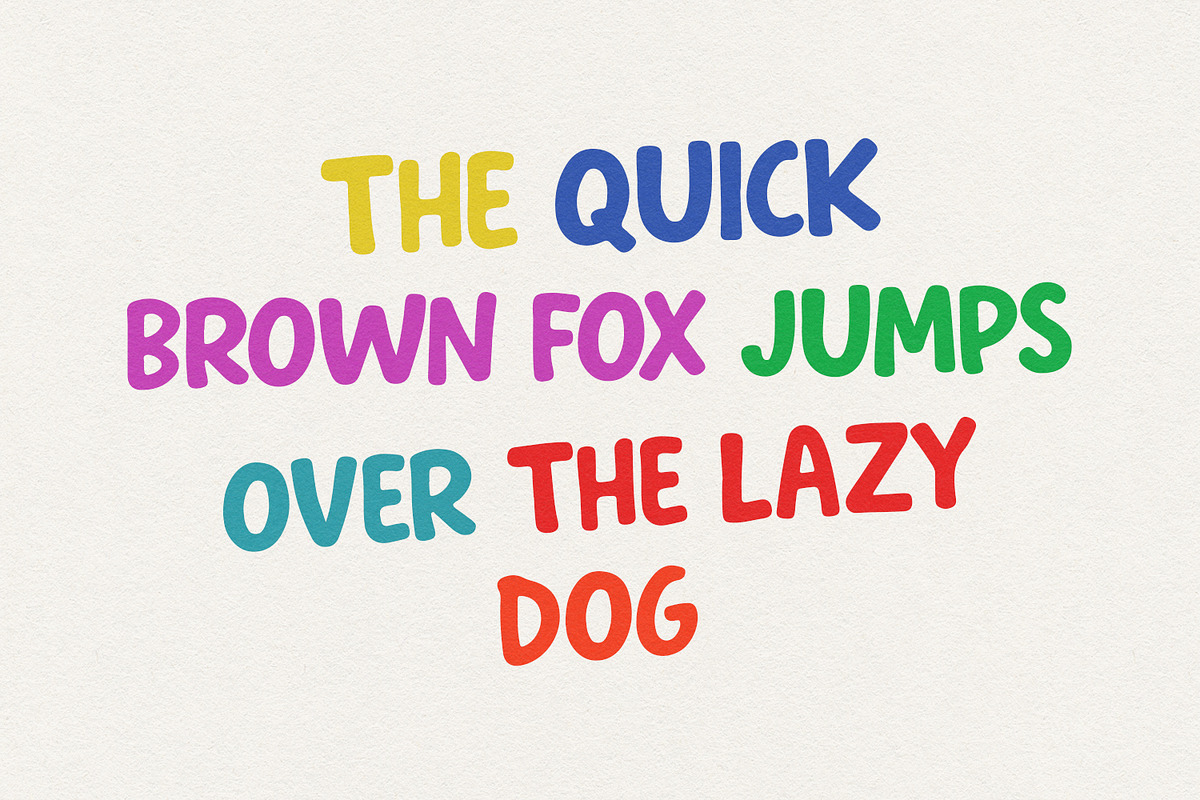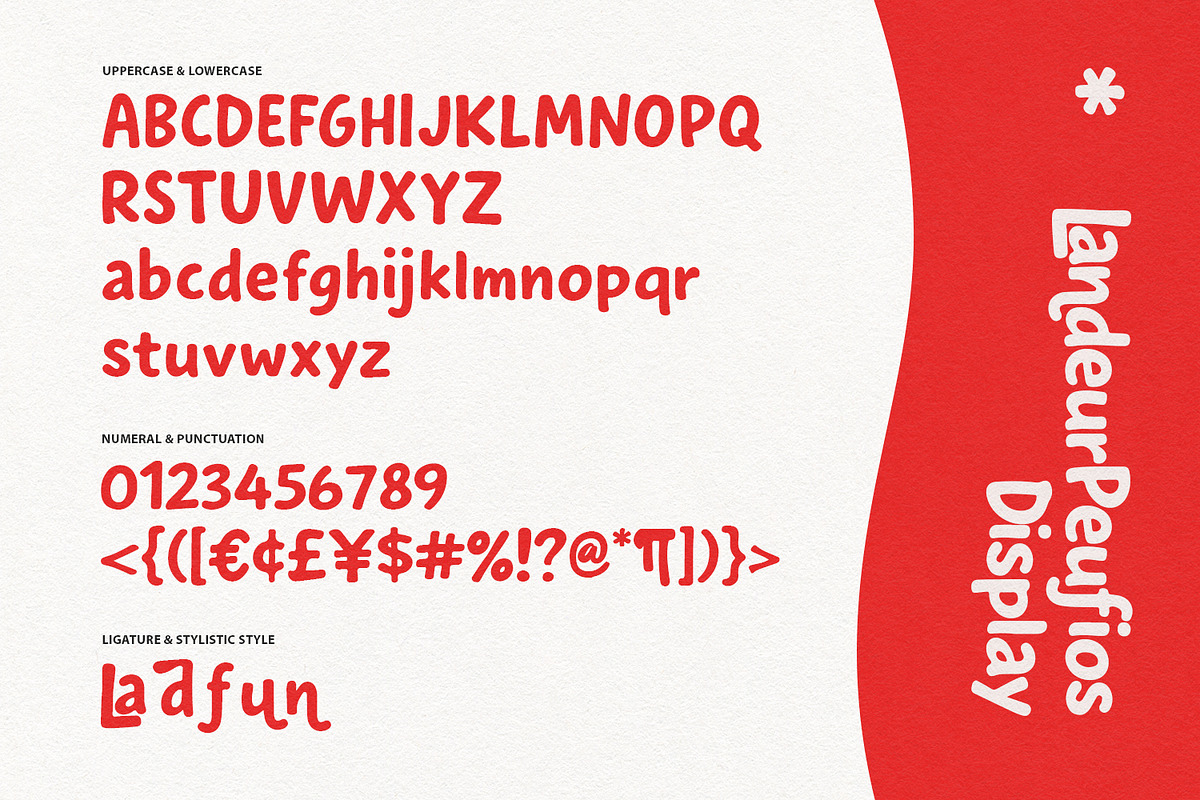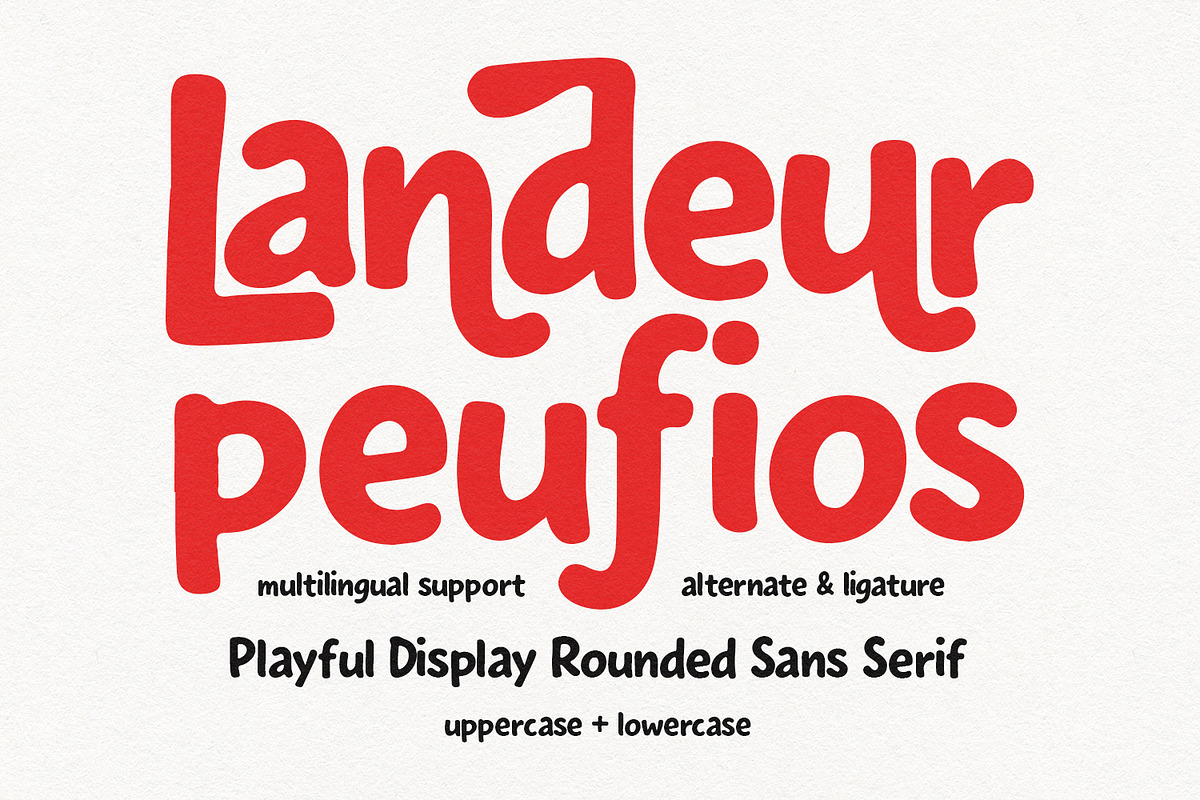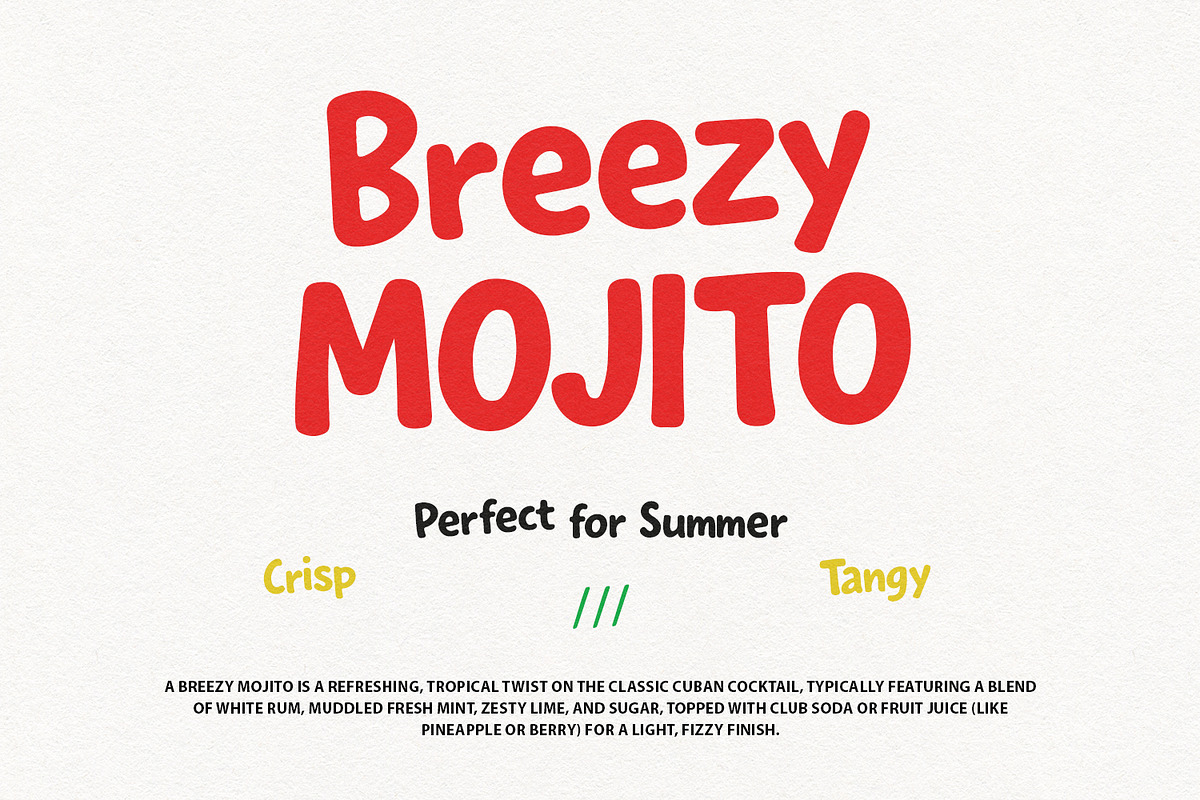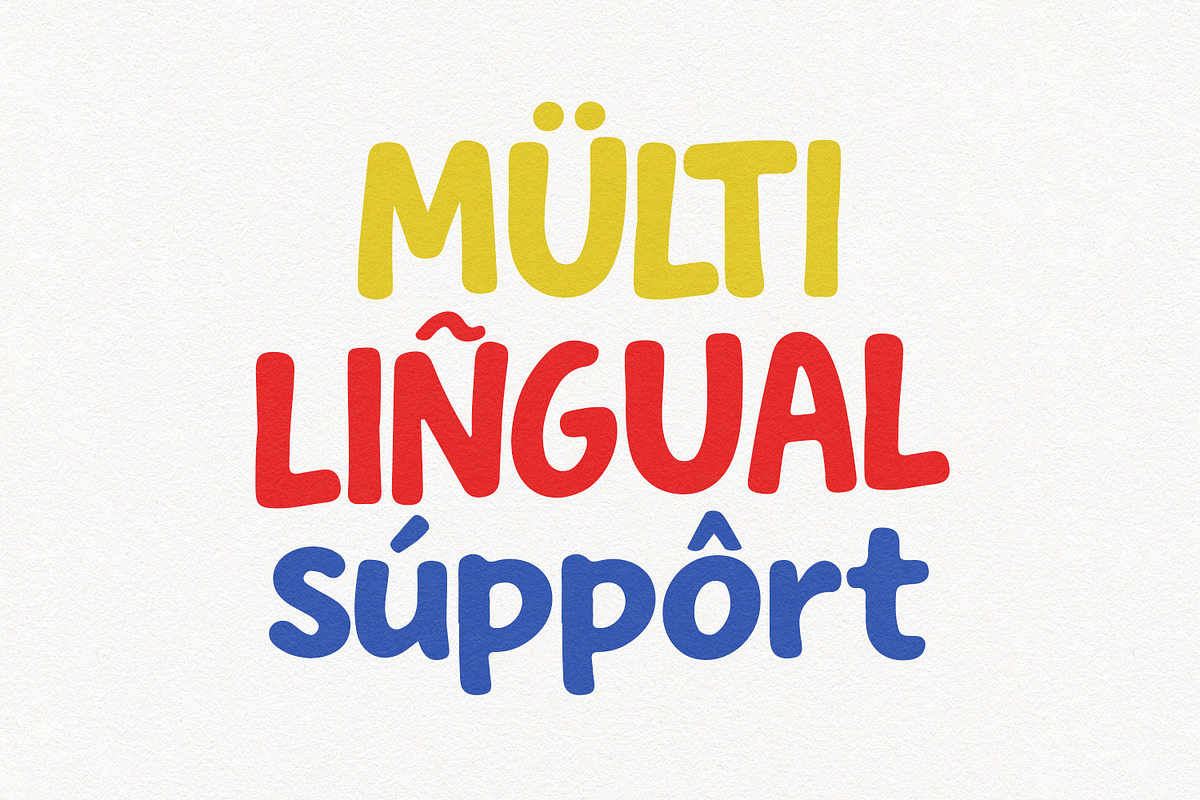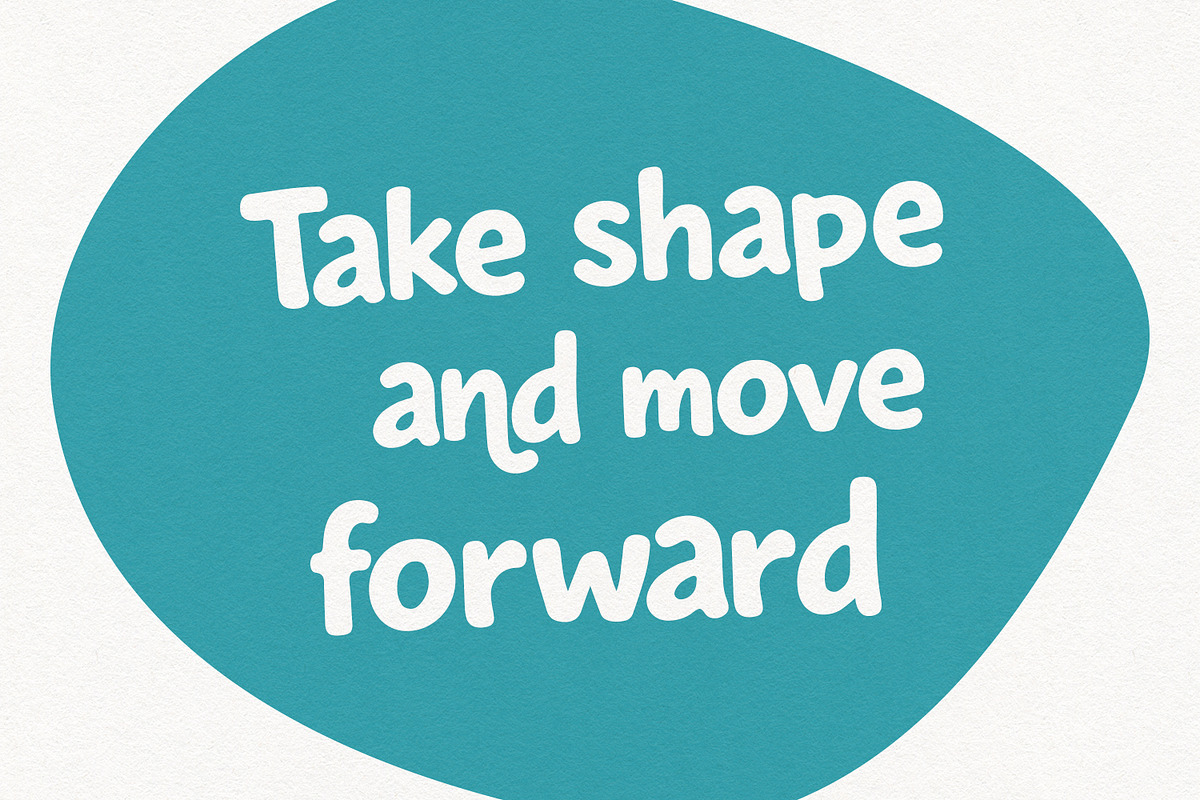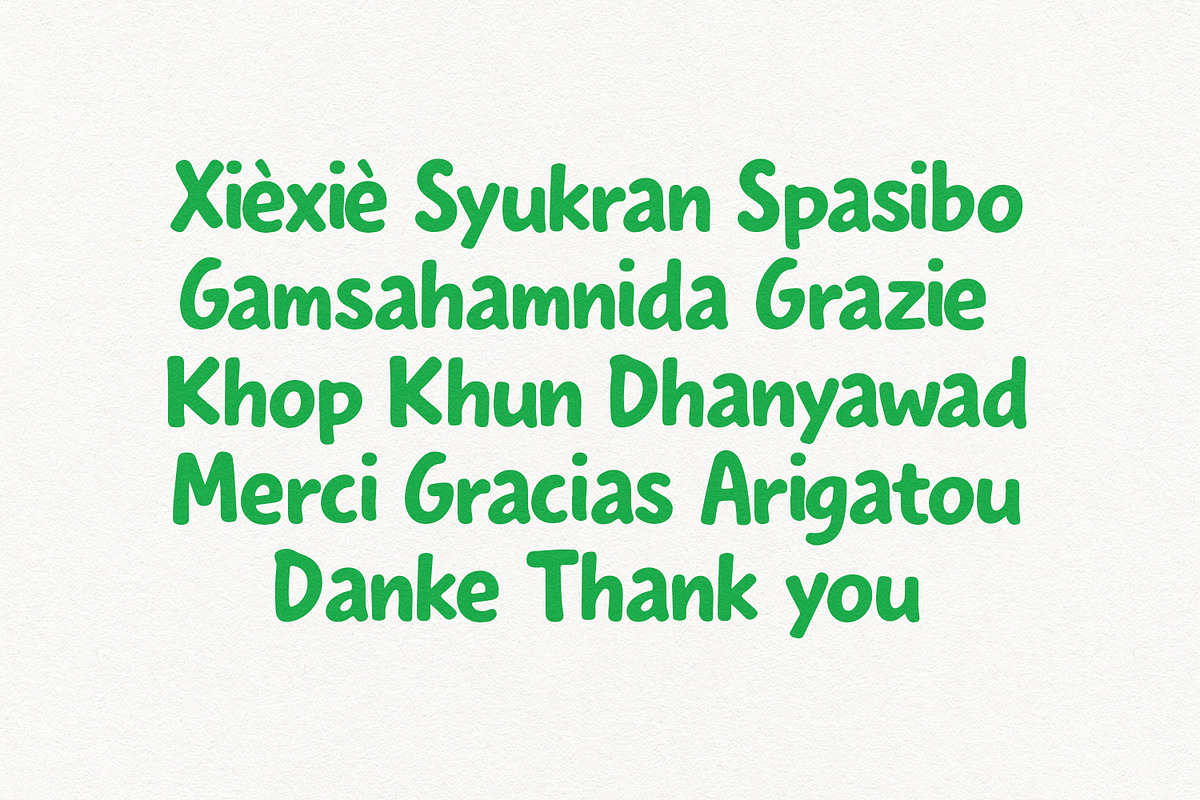
Landeur Peufios Playful Rounded Sans
Landeur Peufios is a vibrant and friendly rounded sans serif typeface designed to bring a sense of joy and approachability to any creative project. Characterized by its soft edges, organic curves, and unique ligatures, this font family offers a handmade feel that balances modern minimalism with a whimsical spirit. Its thick, consistent stroke weight ensures excellent legibility in headlines and display headers, while the included multilingual support and stylistic alternates provide versatile options for global branding, packaging, and digital content.
- Ligature and alternate for a natural handwriting flow